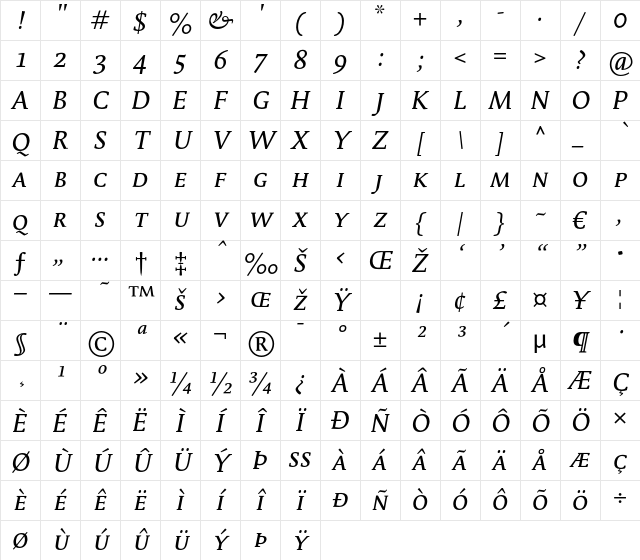
Parable-RegularSCItalic Regular
Design Context for Parable-RegularSCItalic
Parable-RegularSCItalic is a composed and adaptable typeface that performs quietly and consistently across a wide range of design contexts. The slanted form adds forward momentum and visual energy.
Pro Tip: Use Parable-RegularSCItalic for emphasis, pull quotes, and subheadings where its slanted energy can add rhythm to the layout.